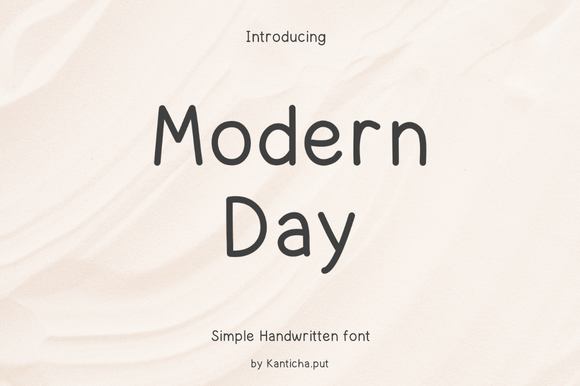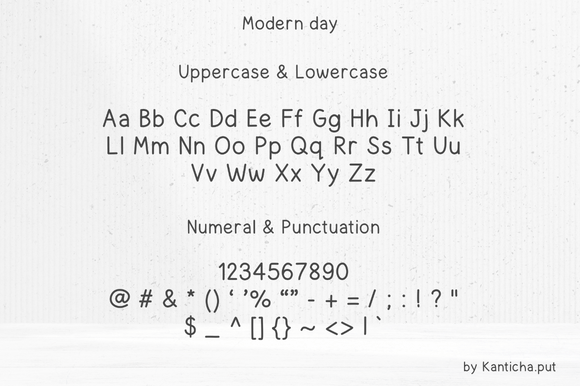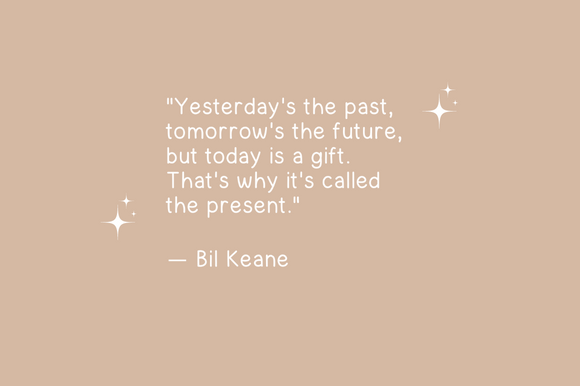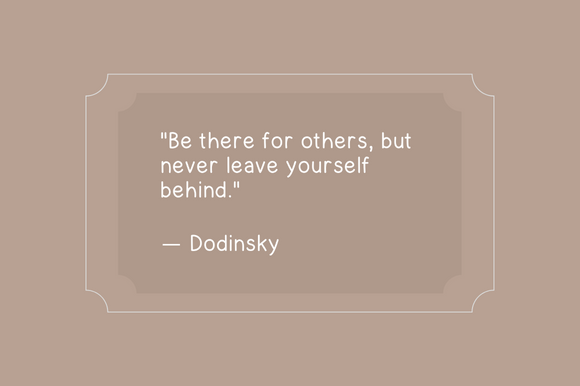
Modern Day Font: A Minimalist Sans Serif for Social Media Design
About the Modern Day Font
Let us introduce you to Modern Day Font, where timeless design meets modern craftsmanship. Modern Day is a simple and neat sans-serif font with a round and minimalistic shape. Its clean and contemporary design is a great choice for any project.
Modern Day’s clean lines and rounded forms make it ideal for branding applications, particularly logos and short headlines where readability at larger sizes is key. It also works well on packaging where a modern, approachable aesthetic is desired. However, its minimalist nature means it’s less suitable for body text or lengthy paragraphs; the consistent thin stroke weight can strain readability at smaller sizes. Avoid using it in user interfaces requiring high levels of detail or extensive text.
The font projects a friendly and approachable, yet modern personality. Its core strength lies in its versatility. To enhance this, consider pairing Modern Day with a contrasting but complementary serif like Garamond for a touch of classic elegance, or a geometric sans-serif like Futura for a bolder, more contemporary feel. A script font like Allura could add a touch of handwritten personality to specific elements within a design utilizing Modern Day.
Modern Day Font Usage Examples
Modern Day Font Example